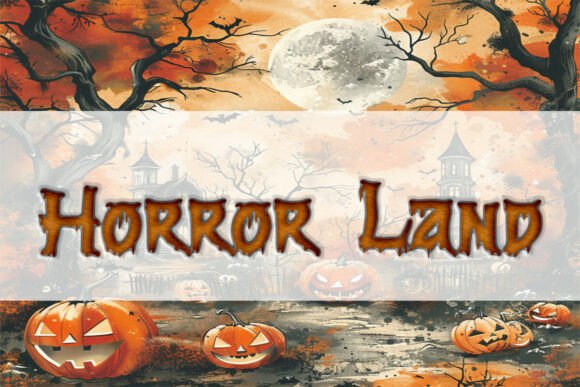
Introduction to Horror Land Font
Have you ever been in the middle of a creative project, pouring over design ideas and fonts, only to hit a roadblock because nothing seems quite right? That’s where Horror Land Font comes in – a game-changing design resource that adds an air of mystery and sophistication to any project. Whether you’re a seasoned designer or a crafty enthusiast, this font is sure to elevate your work and leave a lasting impression.
What sets Horror Land Font apart is its unique blend of elegance and eeriness, making it the perfect choice for a wide range of creative projects, from T-shirts and stickers to magazine layouts and social media posts. With its high-quality design and transparent background, you can be sure that your work will look professional and polished, even when used on the most complex of designs.
Key Features of Horror Land Font
- High-quality design resource ideal for creative projects, including horror-themed games, movies, and artworks.
- Features a transparent background, allowing for easy layering and manipulation within your design or game development.
- Horror Land Font offers a unique and eerie aesthetic, making it perfect for adding a spooky atmosphere to your project.
- Designed to be highly legible, even in low-light conditions, ensuring your text remains clear and readable.
Honest Review: Horror Land Font
I recently had the chance to try out the Horror Land Font, and I must say it’s been a great addition to my design resources. The free download was a nice bonus, and I appreciate the transparent background, which makes it easy to integrate into my creative projects.
What works well for this font is its high quality and versatility. The bold, spooky design is perfect for Halloween-themed projects, but it can also be used for other dark and moody themes. I’ve used it for a few designs, and the results have been impressive.
Here are some of the things I like about the Horror Land Font:
- High-quality design that’s perfect for spooky and dark themes
- Easy to use and integrate into designs
- The font may not be suitable for all types of designs, especially those that require a more playful or lighthearted tone
- The transparent background can sometimes be a bit tricky to work with, especially when combining with other elements
Overall, I’m impressed with the Horror Land Font, and I would definitely recommend it to designers looking for a high-quality, spooky font for their creative projects. ⚠️ Just be aware of the limitations, and you’ll be good to go! ✨
Tips for Getting the Most Out of Horror Land Font
Use Horror Land Font in combination with other design resources to create a unique and high-quality design. Experiment with different font sizes and styles to achieve the desired effect. You can also use the font to create a transparent background for a creative project.
Horror Land Font is commonly used in horror-themed designs, such as Halloween decorations, horror movie posters, and spooky websites. It can also be used in creative projects that require a dark and mysterious atmosphere, such as fantasy art and sci-fi designs.
Q: Can I use the Horror Land Font with a transparent background?
Yes, the Horror Land Font has a transparent background, making it perfect for use on dark or gradient backgrounds. Simply use a design application that supports transparent backgrounds, such as Adobe Photoshop or Illustrator.
Q: What is the quality of the Horror Land Font?
The Horror Land Font is a high-quality design resource, with clear and crisp letterforms. It’s perfect for use in a variety of creative projects, from horror-themed designs to everyday graphics.